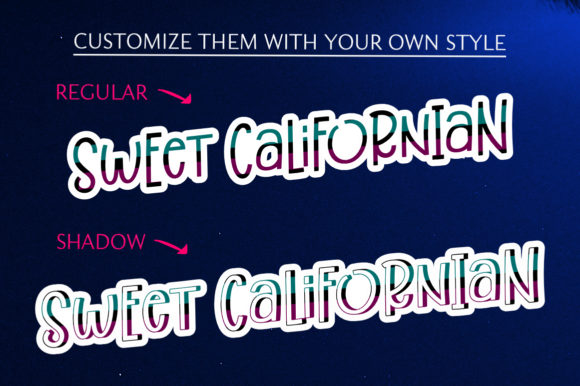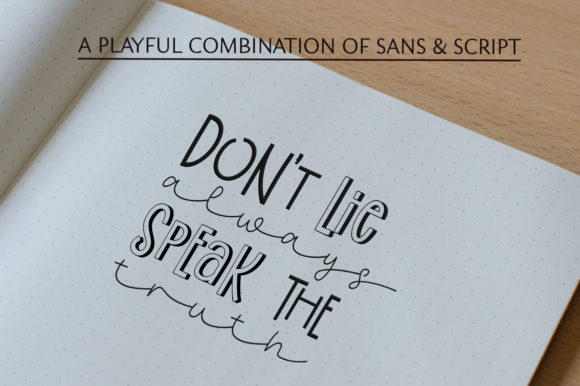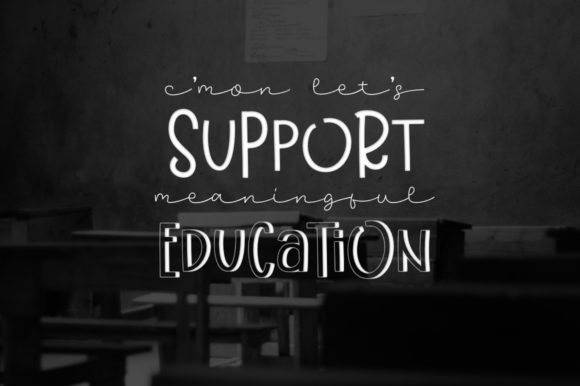
About Best Friend Forever Font
Introducing Best Friend Forever: The Playful Handwritten Font Trio
Discover the magic of Best Friend Forever, a font trio that brings together three delightful styles – handwritten, display, and sans serif – to create a world of playful possibilities. This unique combination makes it an incredibly versatile font, perfectly fitting a wide spectrum of designs.
The Handwritten style of Best Friend Forever exudes a sense of warmth and authenticity. Its playful curves and personal touch make it ideal for adding a heartfelt and endearing vibe to your projects. From greeting cards to personal notes, this style adds a special charm that connects with your audience on a personal level.
The Display style of Best Friend Forever takes boldness to new heights. Its striking letterforms demand attention, making it perfect for headlines, titles, and attention-grabbing elements in your designs. Infuse your creations with an energetic and vibrant feel, setting the stage for an unforgettable visual experience.
For a touch of modern elegance, turn to the Sans Serif style of Best Friend Forever. Its clean lines and contemporary appeal make it a great choice for logos, branding, and any design where simplicity and sophistication are desired. This style balances the trio, adding a touch of refinement to your overall composition.
The combination of these three styles unlocks a world of creative opportunities. Whether you’re crafting posters, social media graphics, packaging, or anything in between, Best Friend Forever adapts with ease, ensuring that your designs stand out with an enchanting and dynamic allure.
So, let Best Friend Forever be your artistic ally, guiding you through the world of playful possibilities. Embrace the versatility of this font trio and watch as your designs come to life with a sense of joy and imagination. Whether you’re creating for business or pleasure, the Best Friend Forever font trio will undoubtedly become your true companion in design, bringing fun and creativity to every project.